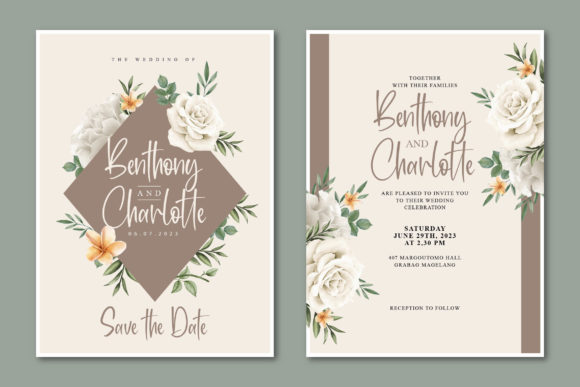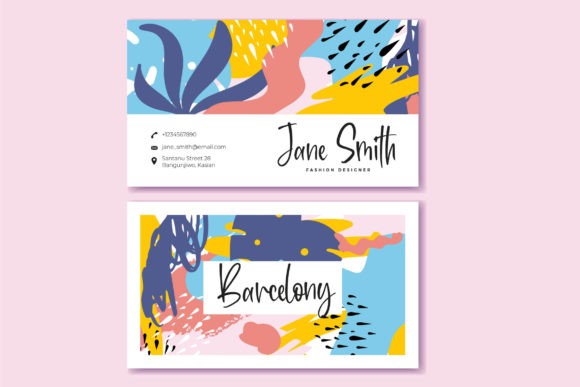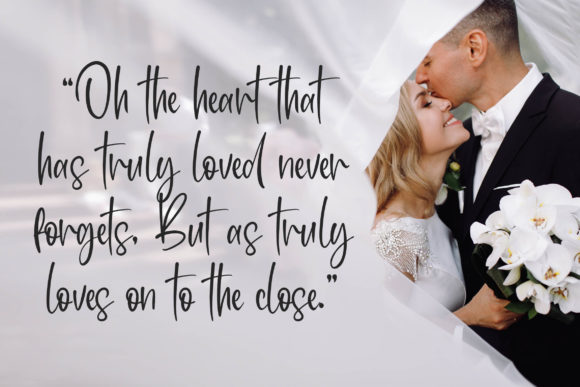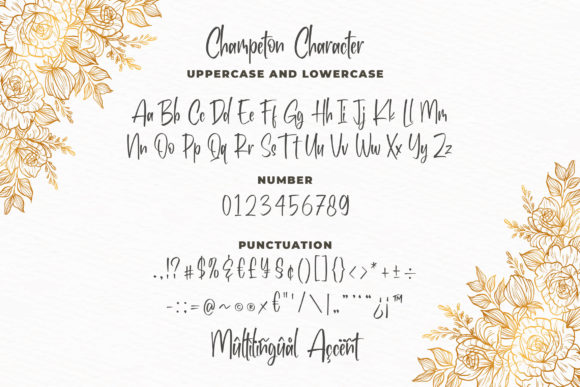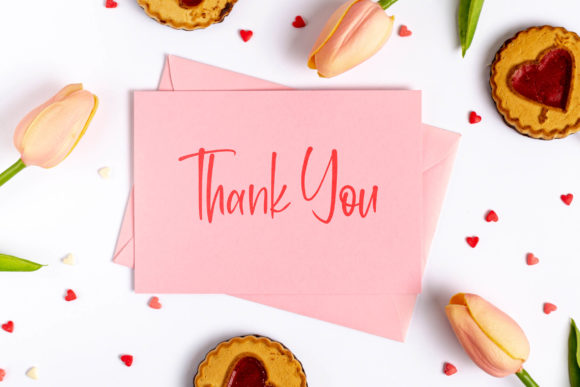
Introducing Champeton Font: Elevate Your Designs with Elegant Calligraphy
In the world of design, fonts play a crucial role in conveying the tone and personality of a brand or project. For those seeking a unique and elegant touch, Champeton Font is an excellent choice. This versatile font combines playfulness with authenticity, making it perfect for creating stunning calligraphy in an instant. Whether you’re a designer, crafter, or DIY enthusiast, Champeton Font is sure to become a favorite in your toolkit.
The Charm of Champeton Font
Champeton Font boasts a distinctive charm that sets it apart from other calligraphy fonts. Its elegant strokes and fluid curves evoke a sense of sophistication and refinement, making it ideal for a wide range of applications. From logos and quotes to invitations, cards, and product packaging, Champeton Font adds a touch of luxury and whimsy to any design.
Key Features of Champeton Font
- Playful yet Authentic: Champeton Font strikes the perfect balance between playfulness and authenticity, making it suitable for both formal and informal designs.
- Elegant Calligraphy: With its fluid strokes and refined curves, Champeton Font creates beautiful calligraphy that’s sure to impress.
- Versatile: Use Champeton Font for logos, quotes, invitations, cards, product packaging, headers, and more.
- Easy to Use: Champeton Font is designed to be user-friendly, allowing you to create stunning calligraphy in an instant.
Design Applications for Champeton Font
Champeton Font is an incredibly versatile font that can be used in a variety of design applications. Here are a few ideas to get you started:
- Logos: Create a memorable and elegant logo for your brand or business with Champeton Font.
- Quotes and Typography: Use Champeton Font to add a touch of sophistication to your quotes, posters, and typography projects.
- Invitations and Cards: Make your invitations and cards stand out with the beautiful calligraphy of Champeton Font.
- Product Packaging: Elevate your product packaging with the luxurious feel of Champeton Font.
- Headers and Titles: Use Champeton Font to create stunning headers and titles for your website, blog, or social media channels.
Why Designers and Crafters Love Champeton Font
Champeton Font has quickly become a favorite among designers and crafters due to its unique combination of playfulness and elegance. Here are a few reasons why:
- Unique Style: Champeton Font offers a distinctive style that’s sure to set your designs apart from the crowd.
- Ease of Use: Champeton Font is designed to be user-friendly, making it easy to incorporate into your design workflow.
- Customization Options: With Champeton Font, you can experiment with different colors, textures, and styles to create a unique look that suits your brand or project.
In conclusion, Champeton Font is an exceptional choice for designers and crafters seeking to add a touch of elegance and playfulness to their designs. With its versatile nature, ease of use, and stunning calligraphy, Champeton Font is sure to become a staple in your design toolkit. Whether you’re creating logos, quotes, invitations, or product packaging, Champeton Font is the perfect choice for elevating your designs to the next level.